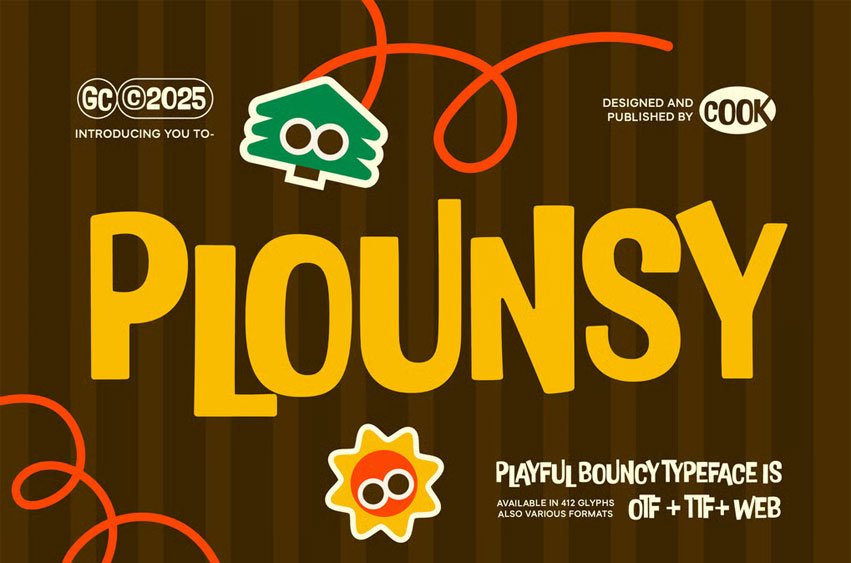
Plounsy Font is a playful, bouncy display font with asymmetrical letterforms and varied thicknesses that create a dynamic, cheerful look. Perfect for posters, headlines, branding, and creative designs that aim for a fun, friendly, and childlike vibe.
It is perfect for headlines, logotypes, magazines, packaging, quotes, movies, games, cover albums, book covers, and flyers, it’s a perfect solution for creating eye-catching designs that stand out in any context.